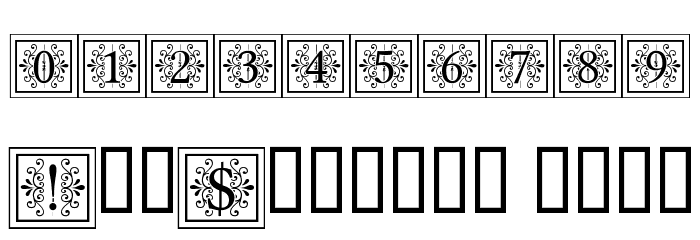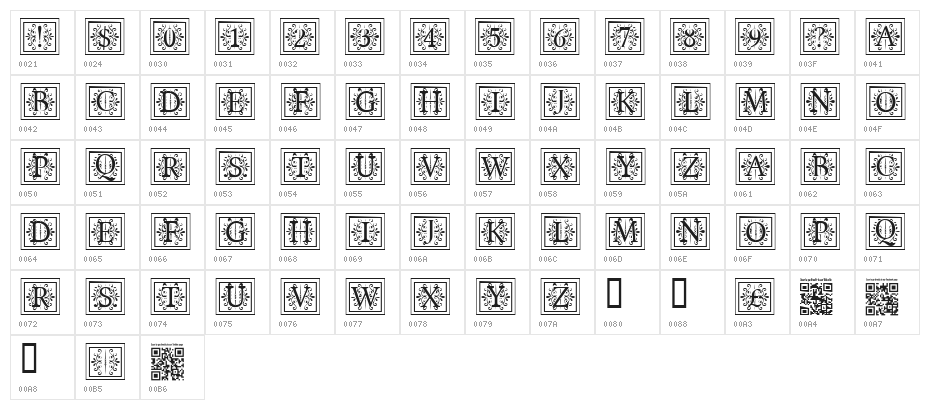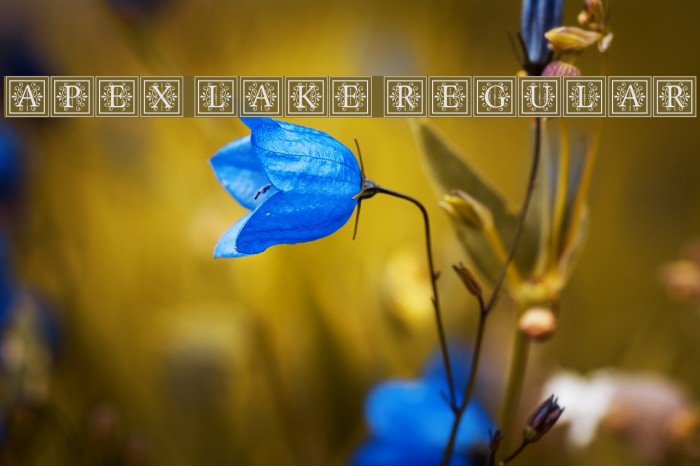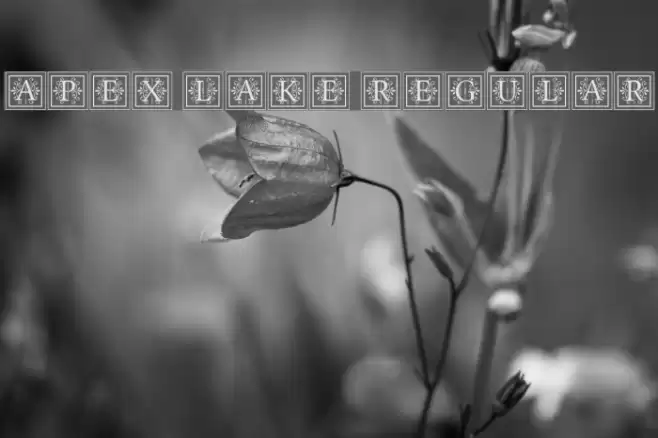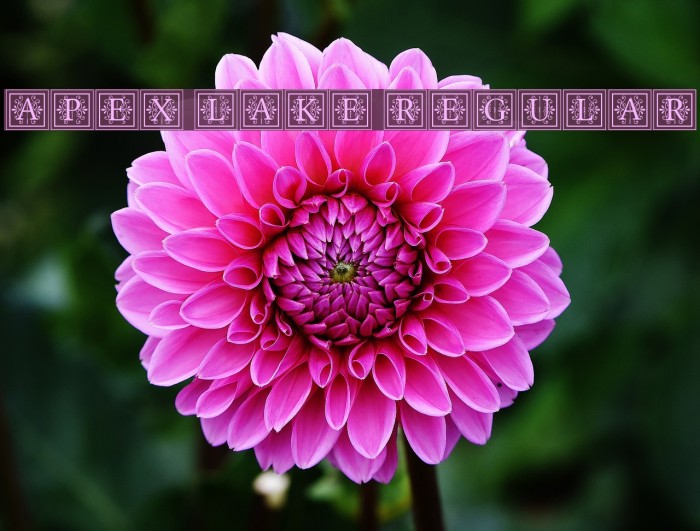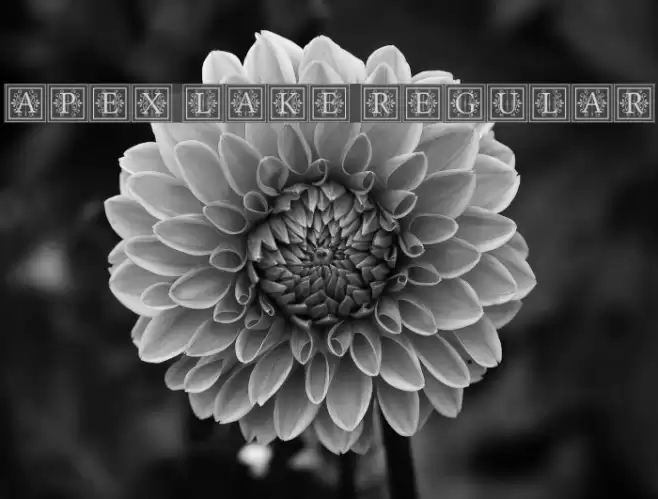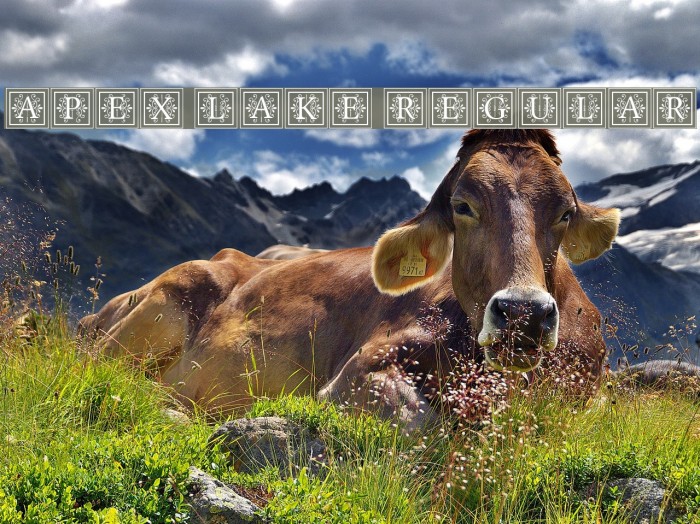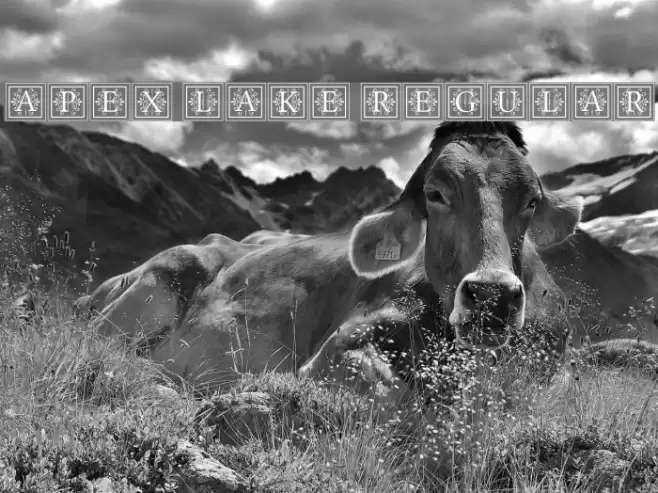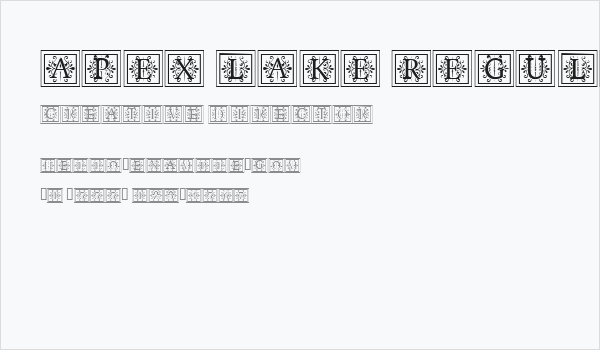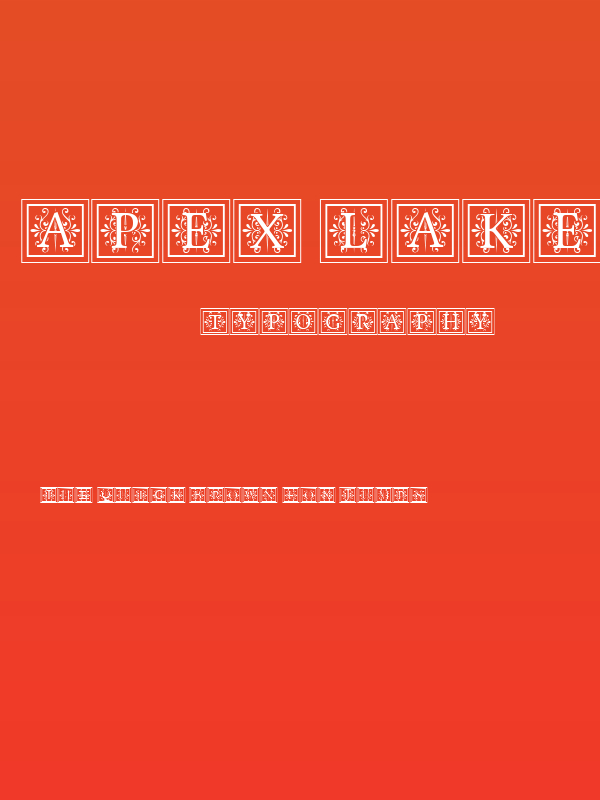
Apex Lake Regular Font
Apex Lake Regular Description
This font features an ornate and decorative style, characterized by intricate floral and vine-like embellishments surrounding each character. The letters are encased in square borders, giving them a framed appearance. The design is highly detailed, with each letter showcasing unique decorative elements that add to its visual appeal. The font is reminiscent of vintage or Victorian-era typography, making it ideal for projects that require a touch of elegance and sophistication. The characters are bold and stand out, making them suitable for display purposes.
| Proposed Projects | Ideal for wedding invitations, vintage-themed posters, book covers, and decorative signage. |